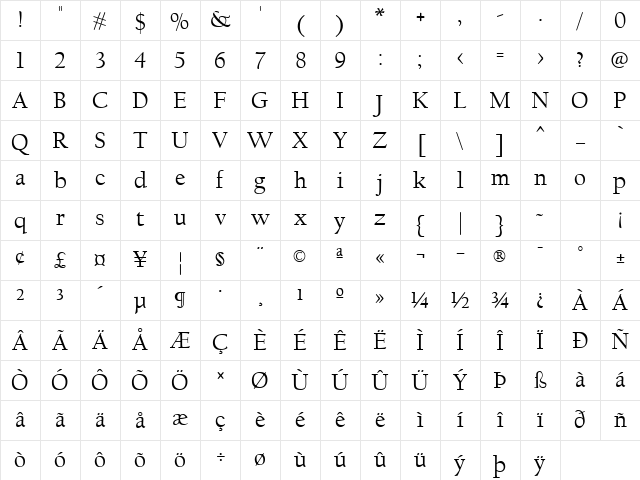
Californian FB Regular
Foundry: The Font Bureau, Inc.
Designer: David Berlow
Californian FB Family
Californian FB Regular
Complete Californian FB Regular glyph index. Displaying only characters natively supported by Californian FB Regular font.
Design Context for Californian FB
Californian FB is a composed and adaptable typeface that performs quietly and consistently across a wide range of design contexts.
Who designed the Californian FB Regular font?
This font was published by The Font Bureau, Inc.. Check the technical specs section for copyright and designer details.